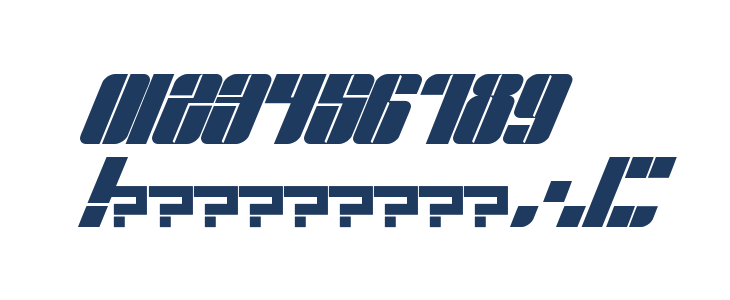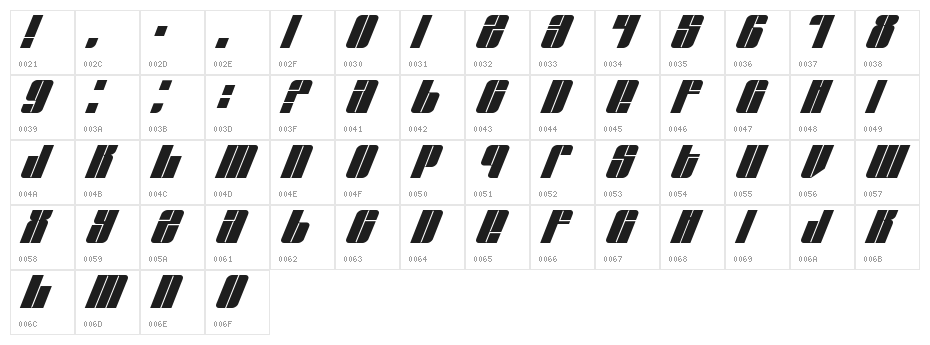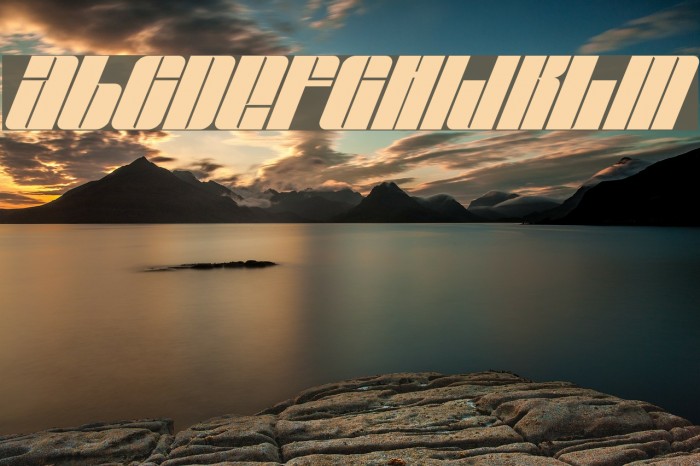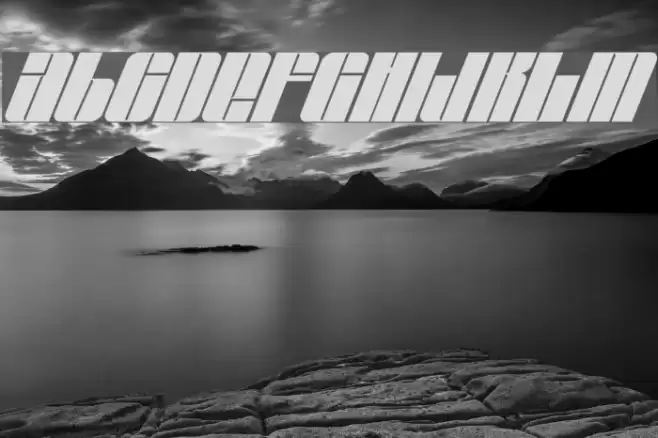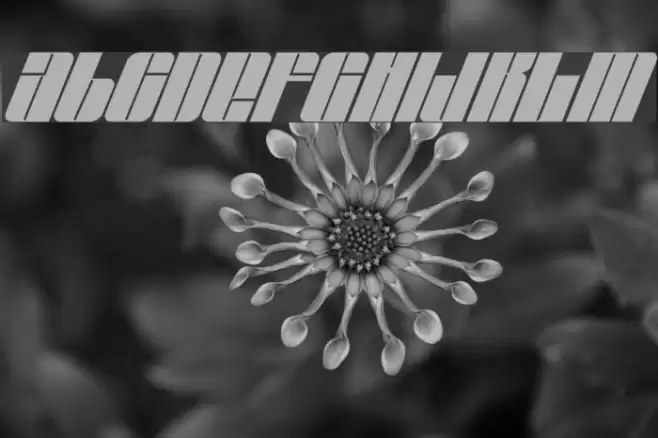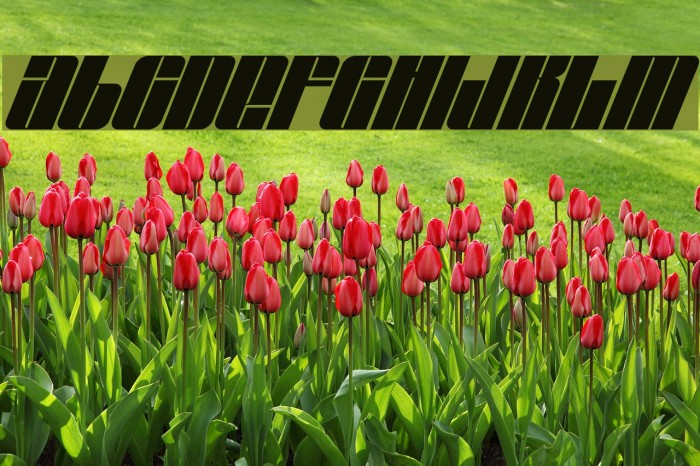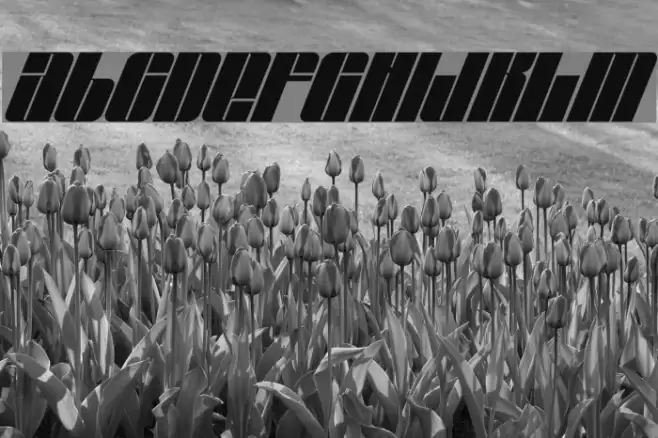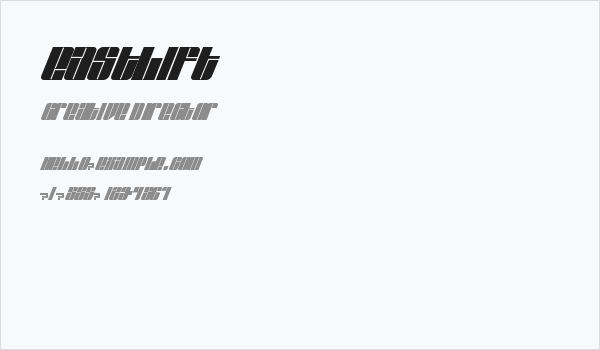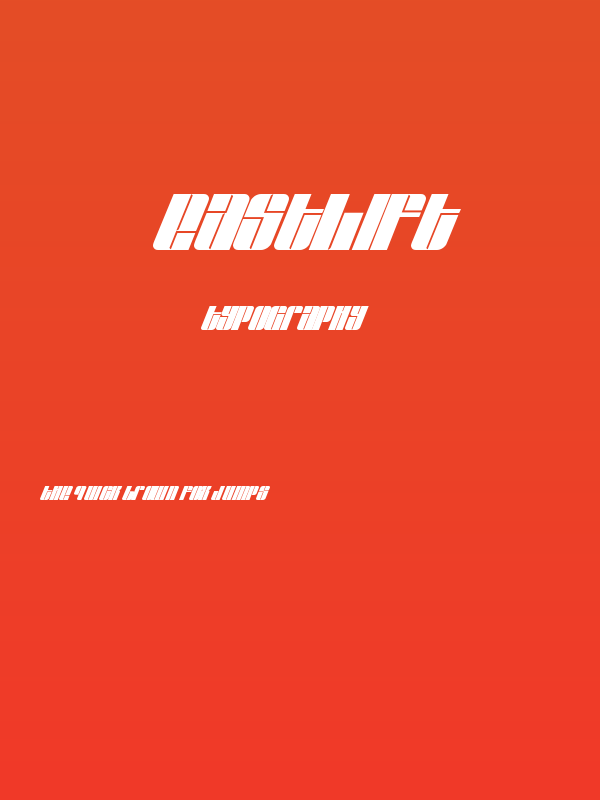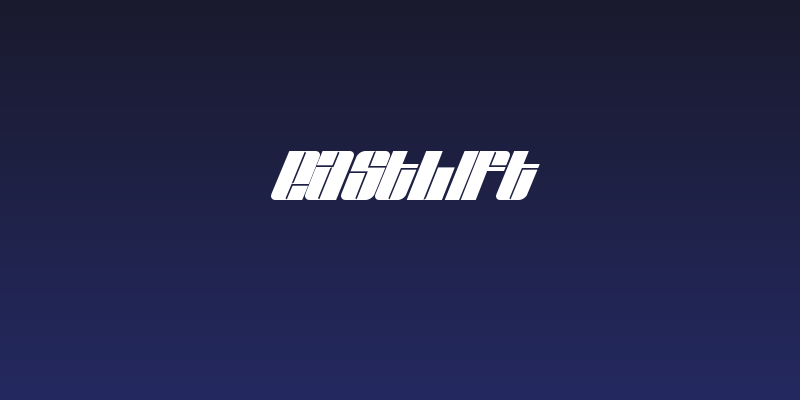
EastLift Font
EastLift Description
This font exhibits a bold and dynamic style with a distinctly modern and futuristic appearance. The characters are slanted, giving a sense of motion and speed, reminiscent of racing or high-tech themes. The strokes are thick and consistent, creating a strong visual impact. The angular design of each letter contributes to its unique and edgy aesthetic. The uppercase and lowercase letters maintain a uniform style, while the numbers and special characters are designed to match the overall theme. The font's geometric and streamlined form makes it suitable for attention-grabbing designs.